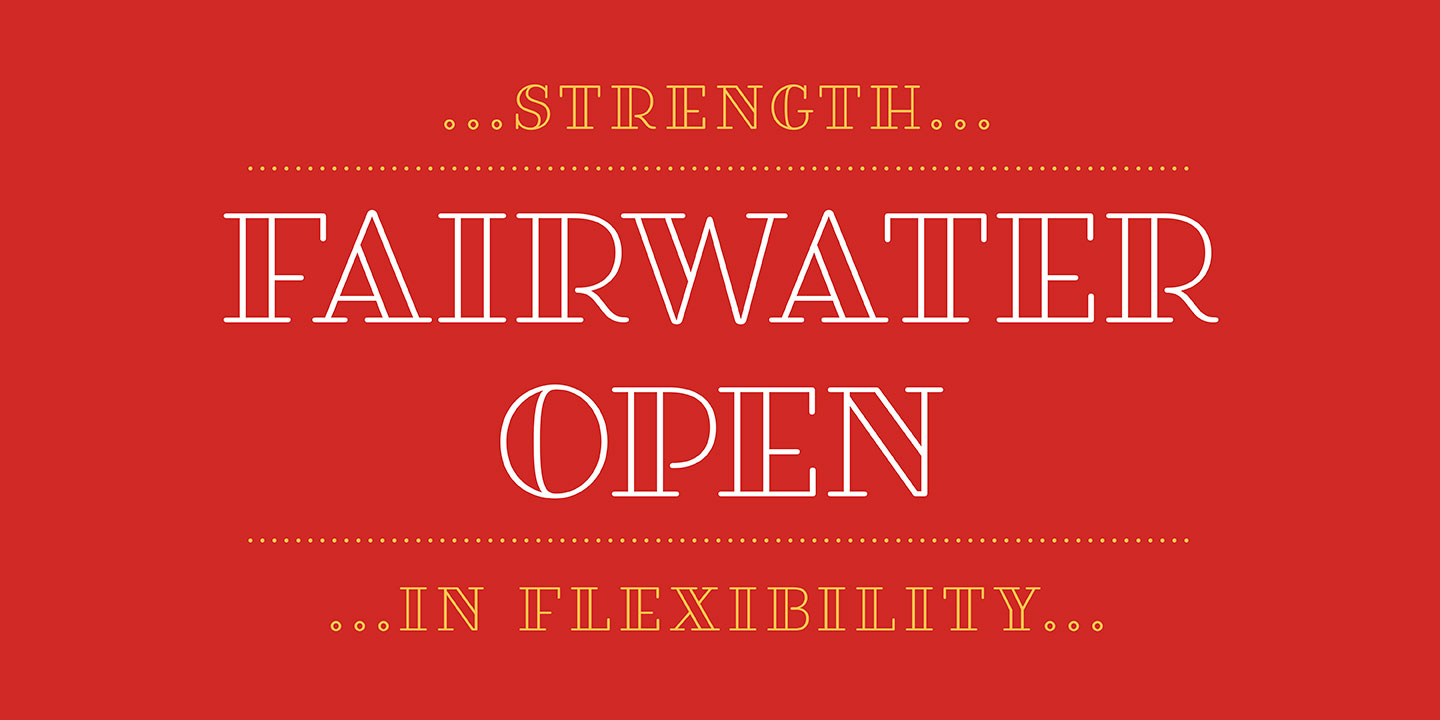
Fairwater’s aesthetic derives from the cursive handwriting styles popularized in the early to mid-1900s, the simplified, forgiving letterforms of tattoo lettering – and the pictorial themes that informed early-to-mid 20th-century naval tattoos. The Fairwater family includes a script and sans face in three weights, four decorative serif faces and an ornamental font: DIY Lines. As with many of my fonts, I couldn’t resist adding a plethora of 465 swashes and alternates to the script version, that include ending forms on all letters, 34 beginning and isolated letters, an unconnected version and contextual alternates. Fairwater also includes a powerful decorative font entitled DIY Lines: 250 ornamental characters of ships, anchors, oars, knots, rope, botanicals, diamonds, arrows and more. With strokes and proportions that perfectly complement the type. See what’s included! http://bit.ly/2cJMUoe These fonts have been specially coded for access of all the swashes, alternates and ornaments without the need for professional design software! Info and instructions here: http://lauraworthingtontype.com/faqs/